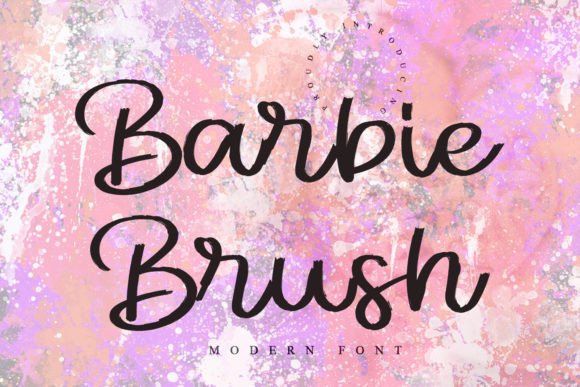
In a world where digital expressions hold sway, let your creativity dance with Barbie Brush Font, an enchanting script font that breathes life into your design endeavors. Its strokes, reminiscent of delicate brushstrokes, possess an organic charm that adds a touch of elegance and authenticity to your creations.
Unleash your imagination and embrace the limitless possibilities that await you with Barbie Brush Font. Whether you're a seasoned designer or just starting your artistic journey, this font is your perfect companion. Its versatility knows no bounds, making it the ideal choice for a wide range of projects, from captivating YouTube banners and striking cover logo mockups to heartfelt wedding invitations and essential ID cards.
Step into a world where your designs take center stage, where your messages captivate, and your ideas flow effortlessly. Experience the joy of crafting flyers that demand attention, creating crafts that radiate originality, and leaving a lasting impression with every project you undertake.
With Barbie Brush Font, you're not just downloading a font; you're unlocking a gateway to creative freedom. Its user-friendly nature makes it accessible to all, empowering you to transform your visions into tangible realities. Dive into the world of typography and let your creativity flourish like never before.